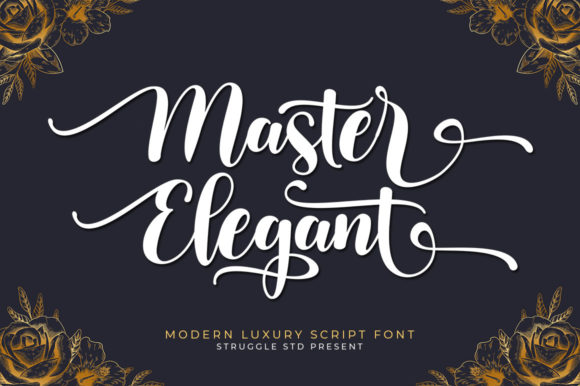
Welcome to the realm of Master Elegant, a script font family that exudes sheer elegance with its graceful strokes and captivating charm. Designed by the talented Struggle Studio, Master Elegant is a true gem crafted to elevate your designs with a touch of timeless sophistication.
Master Elegant is the perfect choice for those seeking a font that speaks volumes, whether it's for heartfelt wedding invitations, heartfelt thank you cards, joyous wedding celebrations, or greeting cards that convey warmth and love. With its versatility, Master Elegant effortlessly enhances logos, branding materials, and any project that calls for a personalized touch.
What sets Master Elegant apart is its meticulous detailing and PUA encoding. This allows you to effortlessly access all of the glyphs and swashes, opening up a world of creative possibilities. Unleash your imagination and let Master Elegant's flourishes add a touch of magic to your designs.
Step into a world of elegance and grace with Master Elegant, the font that transforms your designs into works of art. Its beauty is undeniable, its versatility is limitless, and its charm is irresistible. Experience the Master Elegant difference today and elevate your designs to new heights.